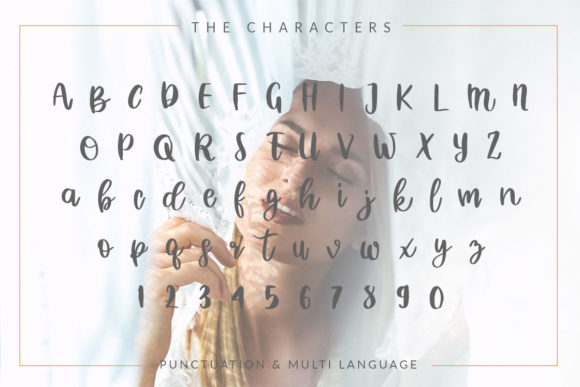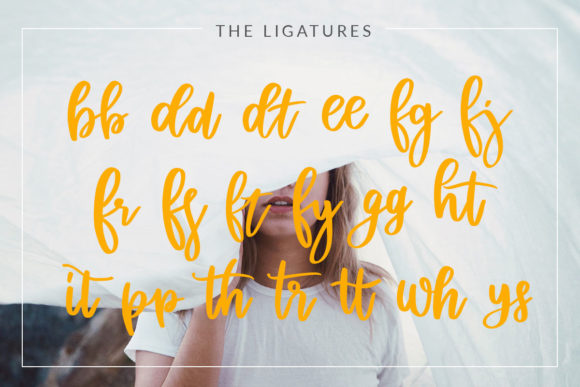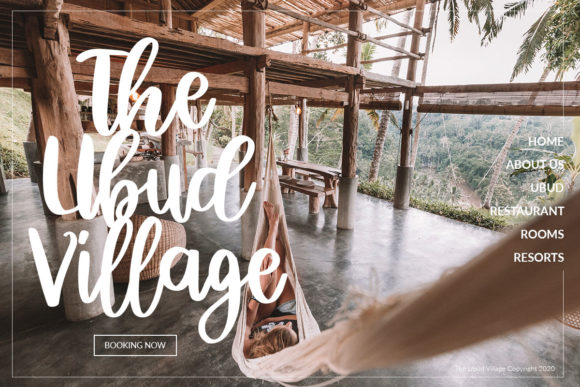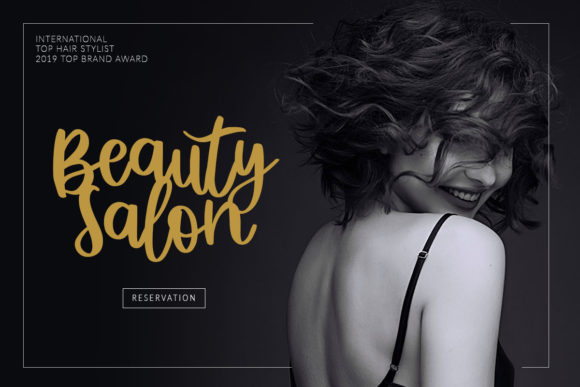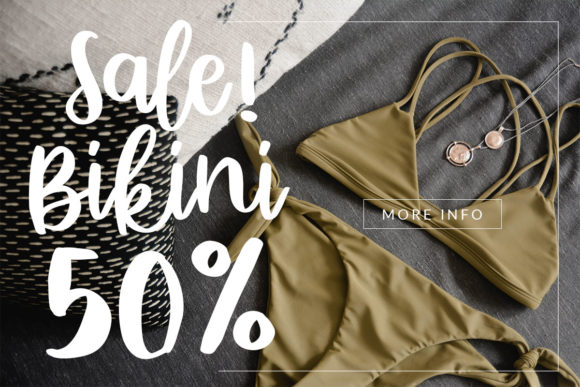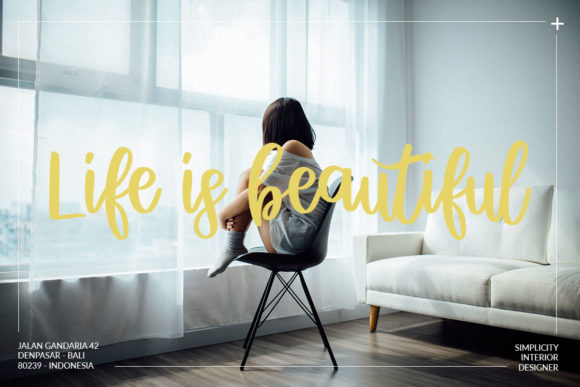
Introduction to Mybela Font
Remember the moment when you’re brainstorming ideas for a creative project, and you stumble upon the perfect font to match your vision? It’s like the entire design falls into place, and you know you’ve found something special. That’s exactly what happened when I discovered the Mybela Font.
This beautiful brush script font has a casual vibe that’s hard to resist. Its playful look and feel make it a design resource that’s both versatile and high-quality. Whether you’re working on a personal project or a commercial one, the Mybela Font is sure to add a touch of creativity and sophistication to your design.
Key Features of Mybela Font
- High-quality font design, perfect for creative projects and design resources.
- Designed to be highly legible, making it suitable for use in a variety of contexts, from body text to headings.
- Comes in a single weight, making it easy to use and maintain a consistent design aesthetic.
Honest Review: Mybela Font
I recently stumbled upon the Mybela Font while searching for high-quality, free design resources to elevate my creative projects. As a designer, I was excited to give it a try.
- The font’s unique and elegant design makes it perfect for various creative projects, from branding to editorial content.
- The transparent background option allows for seamless integration with different design elements.
- The Mybela Font is highly versatile and can be used in a range of design contexts, from digital to print.
- The font may not be suitable for projects that require a bold, attention-grabbing font.
- The font’s elegance may not translate well to more playful or informal design projects.
Overall, I’m impressed with the Mybela Font’s quality and versatility. It’s an excellent addition to any designer’s toolkit, especially for those on a budget. However, it’s essential to consider the font’s limitations and choose it wisely for your creative projects.
Tips for Getting the Most Out of Mybela Font
Use Mybela Font with a transparent background to create a clean and modern design. Experiment with different font sizes and styles to achieve the desired effect. You can also combine Mybela Font with other design elements to create a unique visual identity.
Mybela Font is suitable for a wide range of creative projects, including graphic design, branding, and digital marketing. Its clean and elegant design makes it an excellent choice for presentations, social media posts, and website headers.